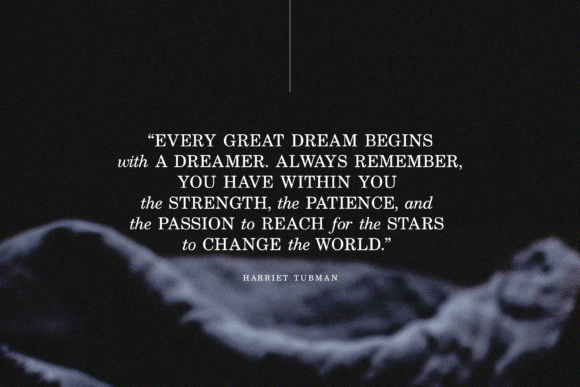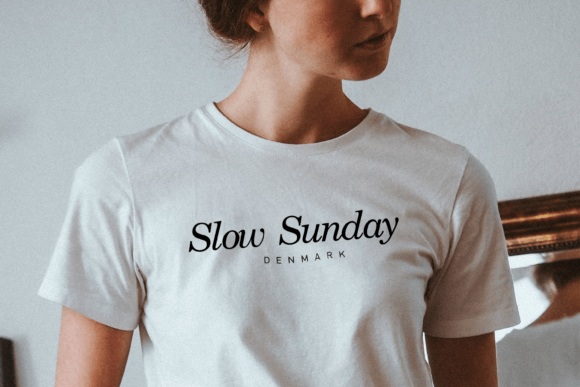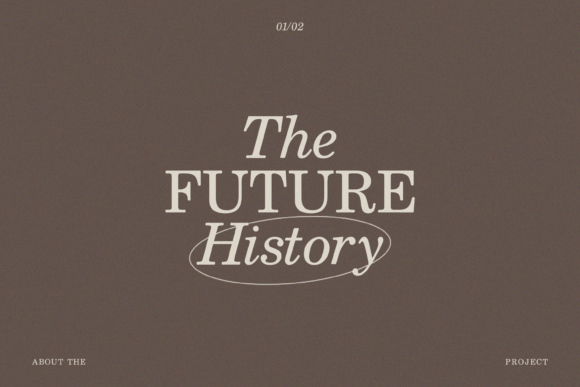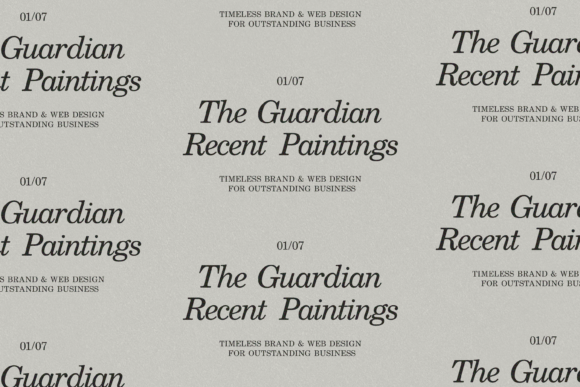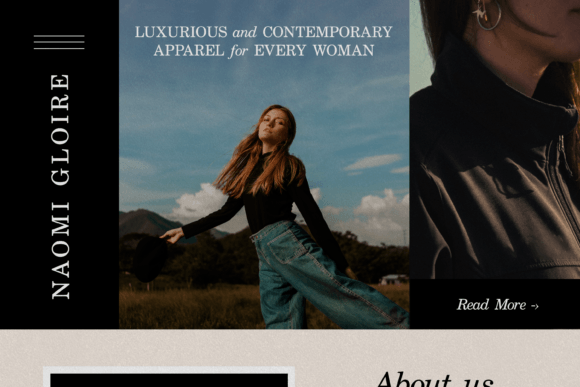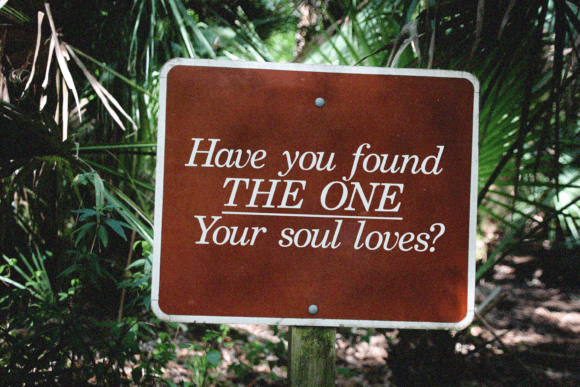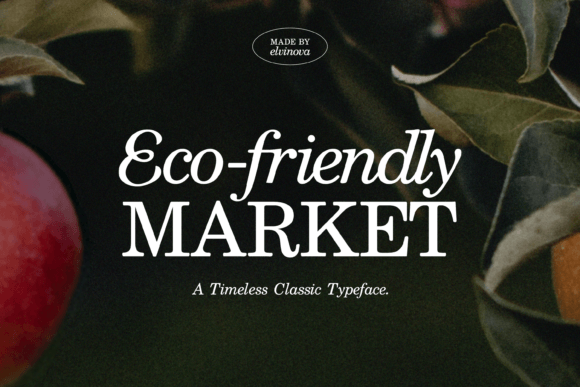
Eco-Friendly Market Font: Elevate Your Designs with Timeless Elegance
In the world of design, fonts play a crucial role in conveying the message and aesthetic of a brand. For those who prioritize eco-friendliness and sustainability, the search for the perfect font can be a challenge. However, with the introduction of Eco-Friendly Market Font, designers and crafters can now add a touch of timeless charm to their work while staying eco-conscious.
What is Eco-Friendly Market Font?
Eco-Friendly Market Font is a stylish, modern serif font that draws inspiration from classic vintage lettering. Its clean and elegant look makes it perfect for a wide range of design applications, from logos and branding to packaging and advertising. The font’s unique blend of traditional and contemporary elements gives it a distinctive character that is sure to capture the attention of audiences.
Key Features of Eco-Friendly Market Font
- Modern Serif Design: Eco-Friendly Market Font boasts a modern serif design that is both sleek and sophisticated.
- Vintage Inspiration: The font’s classic vintage lettering inspiration gives it a timeless charm that is hard to resist.
- Clean and Elegant: The font’s clean and elegant look makes it perfect for designs that require a touch of sophistication.
- Eco-Conscious: As an eco-friendly font, Eco-Friendly Market Font is designed with sustainability in mind.
Benefits of Using Eco-Friendly Market Font
Using Eco-Friendly Market Font in your designs comes with a range of benefits, including:
- Unique Brand Identity: The font’s distinctive character helps to create a unique brand identity that sets you apart from the competition.
- Timeless Appeal: The font’s vintage inspiration ensures that your designs will remain timeless and relevant for years to come.
- Eco-Friendly Credentials: By choosing an eco-friendly font, you demonstrate your commitment to sustainability and eco-consciousness.
- Versatility: The font’s clean and elegant look makes it suitable for a wide range of design applications.
Who Can Benefit from Eco-Friendly Market Font?
Eco-Friendly Market Font is perfect for:
- Designers: Graphic designers, branding experts, and advertising professionals will love the font’s unique character and versatility.
- Crafters: Crafters and makers will appreciate the font’s elegant look and eco-friendly credentials.
- Sustainable Brands: Brands that prioritize sustainability and eco-friendliness will appreciate the font’s eco-conscious design.
Eco-Friendly Market Font is a stylish, modern serif font that offers a unique blend of timeless elegance and eco-consciousness. With its clean and elegant look, versatility, and eco-friendly credentials, this font is perfect for designers, crafters, and sustainable brands looking to elevate their designs. By choosing Eco-Friendly Market Font, you can add a touch of sophistication to your work while demonstrating your commitment to sustainability.